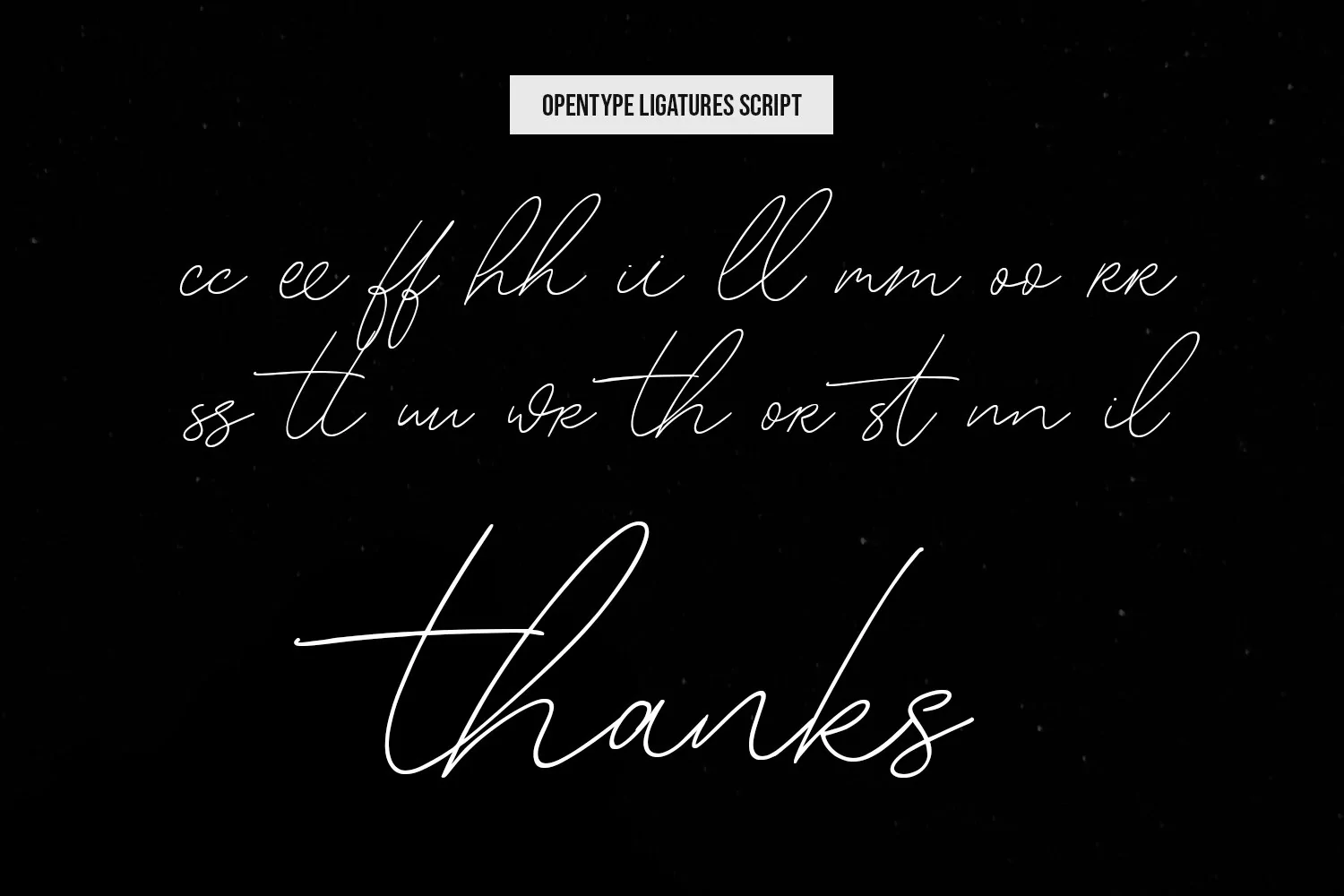
Collint Billy is a fancy handwritten script font duo pair with handwritten sans. With medium contrast stroke, fun character with a bit of ligatures and alternates. To give you an extra creative work. Collint Billy font support multilingual more than 100+ language. This font is good for logo design, Social media, Movie Titles, Books Titles, a short text even a long text letter and good for your secondary text font with sans or serif. Make a stunning work with Collint Billy font.